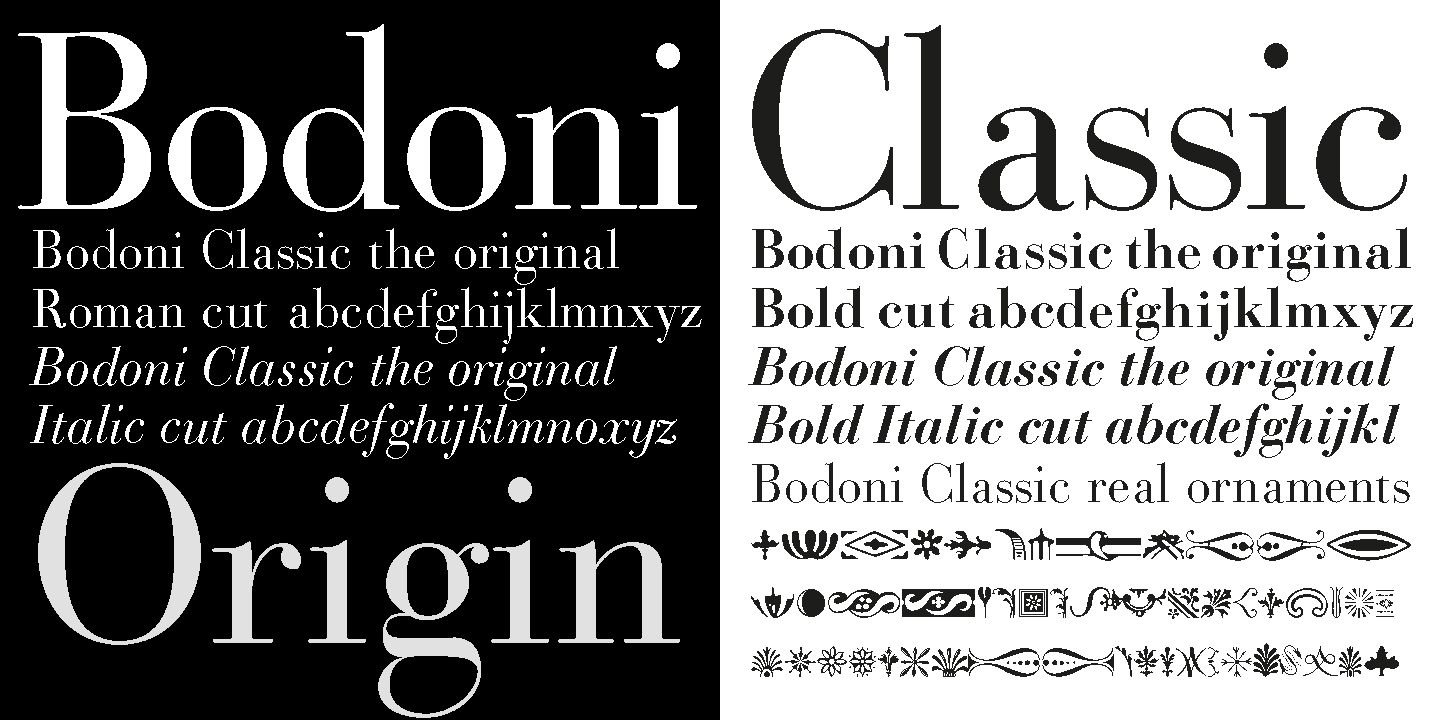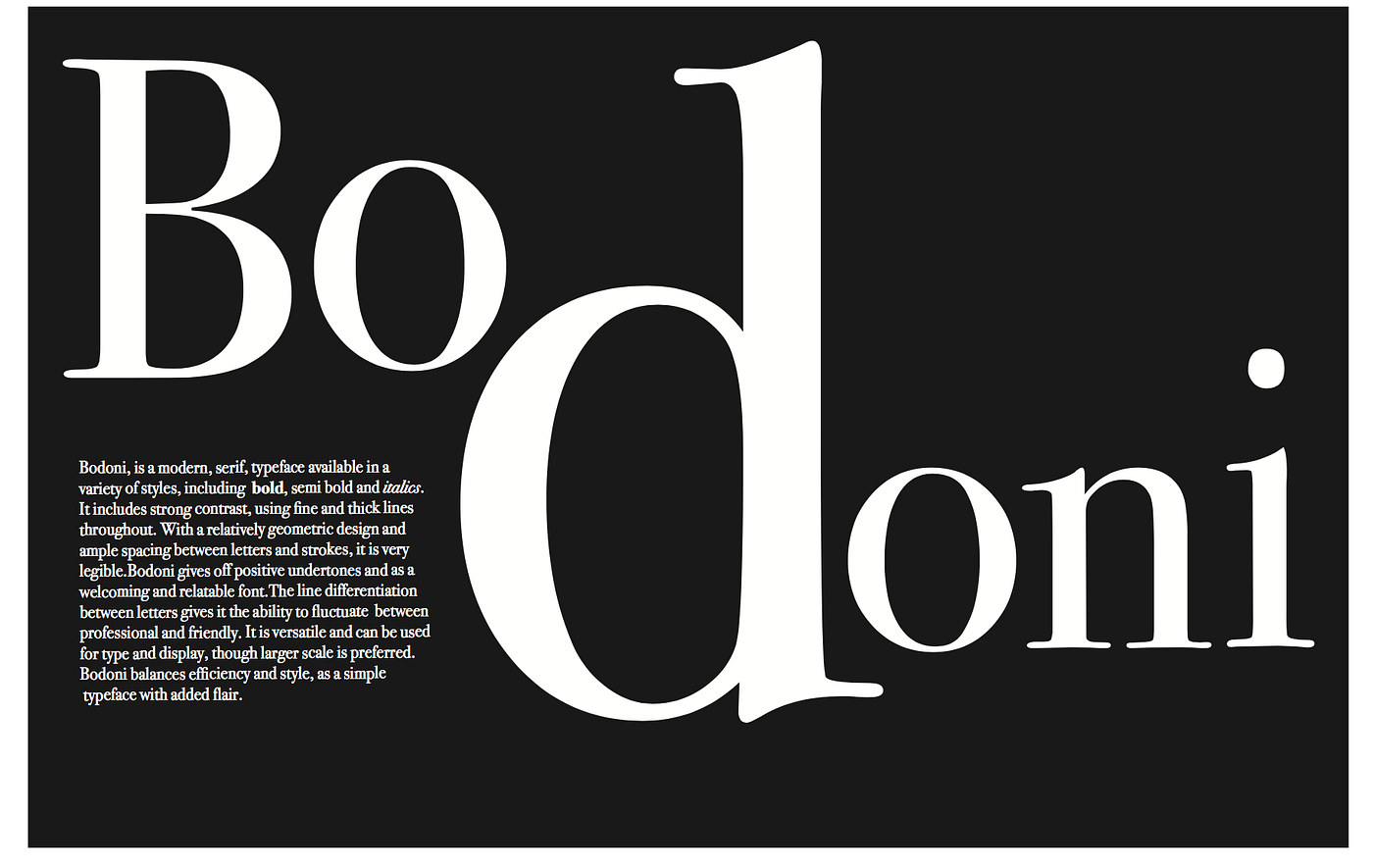
Bodoni Font Family
Bodoni Font Family - It was designed by owen. Bodoni font family was designed by giambattista bodoni, robert hunter middleton, urw design staff and published by urw type foundry. Ltc bodoni 175 is modern typeface originally created by giambattista bodoni in 1790, which served as the structural model for this faithful. The libre bodoni fonts are based on the 19th century morris fuller benton's atf design, but specifically adapted for today's web.
The libre bodoni fonts are based on the 19th century morris fuller benton's atf design, but specifically adapted for today's web. Bodoni font family was designed by giambattista bodoni, robert hunter middleton, urw design staff and published by urw type foundry. Ltc bodoni 175 is modern typeface originally created by giambattista bodoni in 1790, which served as the structural model for this faithful. It was designed by owen.
Ltc bodoni 175 is modern typeface originally created by giambattista bodoni in 1790, which served as the structural model for this faithful. Bodoni font family was designed by giambattista bodoni, robert hunter middleton, urw design staff and published by urw type foundry. It was designed by owen. The libre bodoni fonts are based on the 19th century morris fuller benton's atf design, but specifically adapted for today's web.
Bodoni font family was designed by giambattista bodoni, robert hunter middleton, urw design staff and published by urw type foundry. It was designed by owen. Ltc bodoni 175 is modern typeface originally created by giambattista bodoni in 1790, which served as the structural model for this faithful. The libre bodoni fonts are based on the 19th century morris fuller benton's.
Ltc bodoni 175 is modern typeface originally created by giambattista bodoni in 1790, which served as the structural model for this faithful. Bodoni font family was designed by giambattista bodoni, robert hunter middleton, urw design staff and published by urw type foundry. It was designed by owen. The libre bodoni fonts are based on the 19th century morris fuller benton's.
Bodoni font family was designed by giambattista bodoni, robert hunter middleton, urw design staff and published by urw type foundry. Ltc bodoni 175 is modern typeface originally created by giambattista bodoni in 1790, which served as the structural model for this faithful. It was designed by owen. The libre bodoni fonts are based on the 19th century morris fuller benton's.
Ltc bodoni 175 is modern typeface originally created by giambattista bodoni in 1790, which served as the structural model for this faithful. The libre bodoni fonts are based on the 19th century morris fuller benton's atf design, but specifically adapted for today's web. Bodoni font family was designed by giambattista bodoni, robert hunter middleton, urw design staff and published by.
The libre bodoni fonts are based on the 19th century morris fuller benton's atf design, but specifically adapted for today's web. It was designed by owen. Ltc bodoni 175 is modern typeface originally created by giambattista bodoni in 1790, which served as the structural model for this faithful. Bodoni font family was designed by giambattista bodoni, robert hunter middleton, urw.
It was designed by owen. The libre bodoni fonts are based on the 19th century morris fuller benton's atf design, but specifically adapted for today's web. Bodoni font family was designed by giambattista bodoni, robert hunter middleton, urw design staff and published by urw type foundry. Ltc bodoni 175 is modern typeface originally created by giambattista bodoni in 1790, which.
Bodoni Font Family
Ltc bodoni 175 is modern typeface originally created by giambattista bodoni in 1790, which served as the structural model for this faithful. The libre bodoni fonts are based on the 19th century morris fuller benton's atf design, but specifically adapted for today's web. Bodoni font family was designed by giambattista bodoni, robert hunter middleton, urw design staff and published by.
Bodoni Font Family Dafont Free
It was designed by owen. Ltc bodoni 175 is modern typeface originally created by giambattista bodoni in 1790, which served as the structural model for this faithful. The libre bodoni fonts are based on the 19th century morris fuller benton's atf design, but specifically adapted for today's web. Bodoni font family was designed by giambattista bodoni, robert hunter middleton, urw.
All Free Fonts Suggested on Fontpair
Ltc bodoni 175 is modern typeface originally created by giambattista bodoni in 1790, which served as the structural model for this faithful. Bodoni font family was designed by giambattista bodoni, robert hunter middleton, urw design staff and published by urw type foundry. The libre bodoni fonts are based on the 19th century morris fuller benton's atf design, but specifically adapted.
It was designed by owen. Bodoni font family was designed by giambattista bodoni, robert hunter middleton, urw design staff and published by urw type foundry. Ltc bodoni 175 is modern typeface originally created by giambattista bodoni in 1790, which served as the structural model for this faithful.